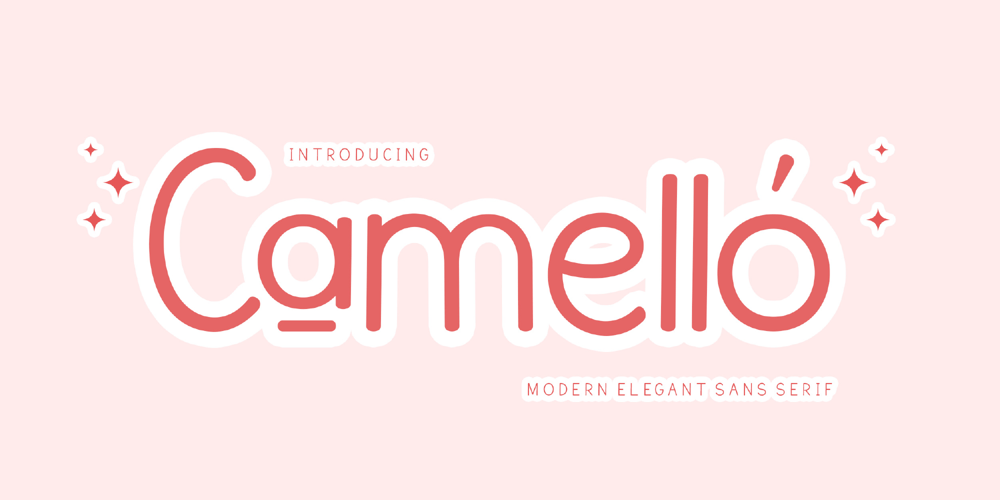
Camello
Camello font
Camello Font Family was designed by Achmad Yani and published by Flawlessandco. Camello contains 1 styles and family package options. Introducing “Camello” – a modern sans serif font that blends elegance with a touch of girly charm. With its sleek and contemporary design, Camello is the perfect choice for projects that require a sophisticated yet playful aesthetic.An Original typeface that suitable for any graphic designs such as branding materials, t-shirt, print, business cards, logo, poster, t-shirt, photography, quotes .etcThis font support for some multilingual. Modern Sweet Retro that contains uppercase A-Z and lowercase a-z, alternate character, numbers 0-9, and some punctuation.If you need help, just write me! Thanks so much for checking out my shop